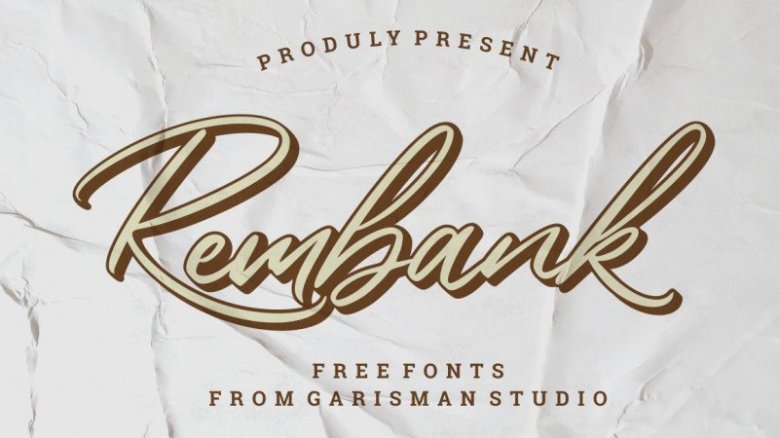
Rembank Calligraphy Font
Rembank Font| Beauty Script Handwritten with a calligraphy style, So beautiful on invitation like greeting cards, branding materials, business cards, quotes, posters, and more!